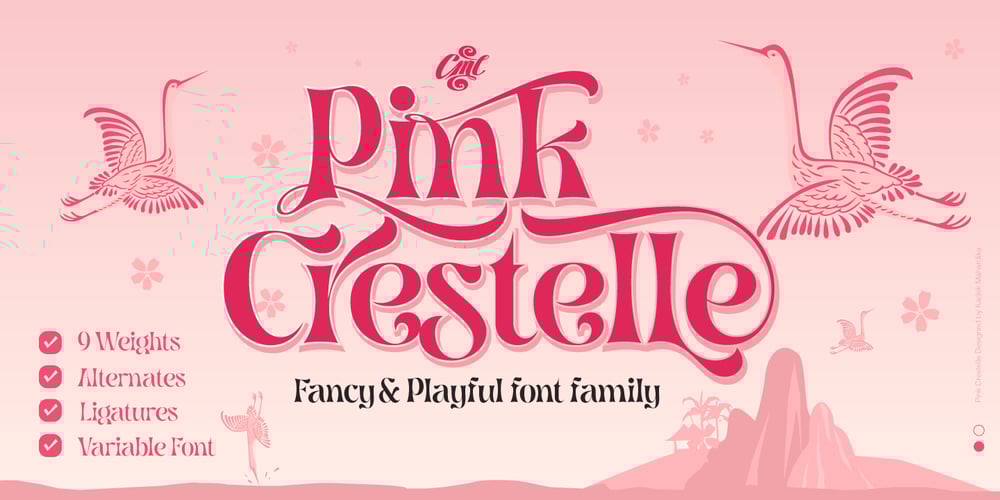
Pink Crestelle
Pink Crestelle font
Pink Crestelle Font Family was designed by Kadek Mahardika and published by Creativemedialab. Pink Crestelle contains 10 styles and family package options. Been working on a tropical or fancy themed project? You will love this family.Introducing Pink Crestelle a fancy, versatile and playful font family.This family contains 9 weights and has tons of alternates and ligatures. Best for branding, webdesign project, Clothing brand, logo design, valentine’s greetings, packaging and much more.